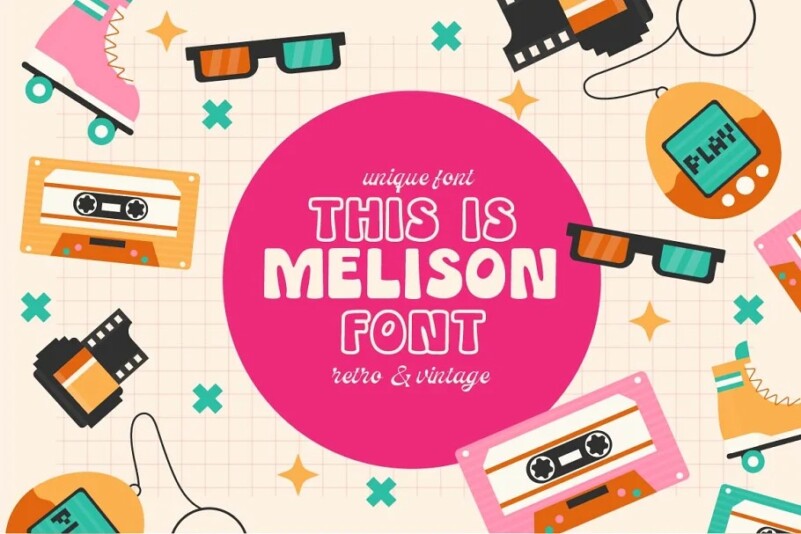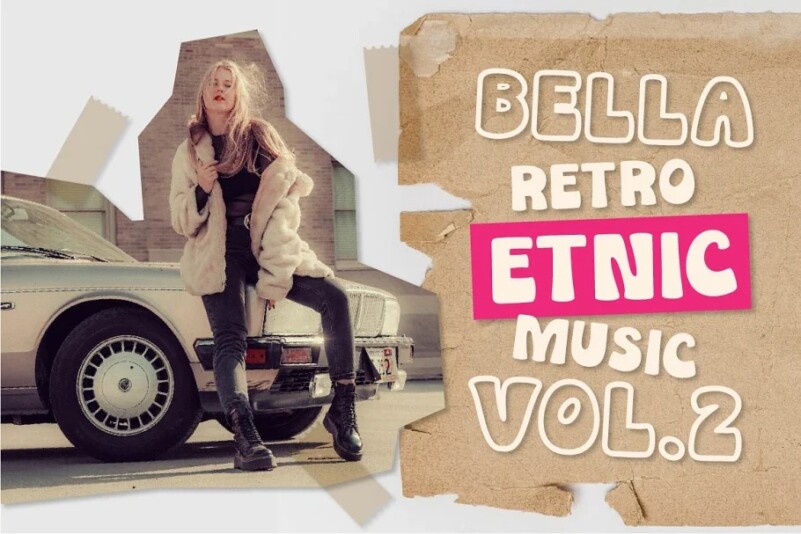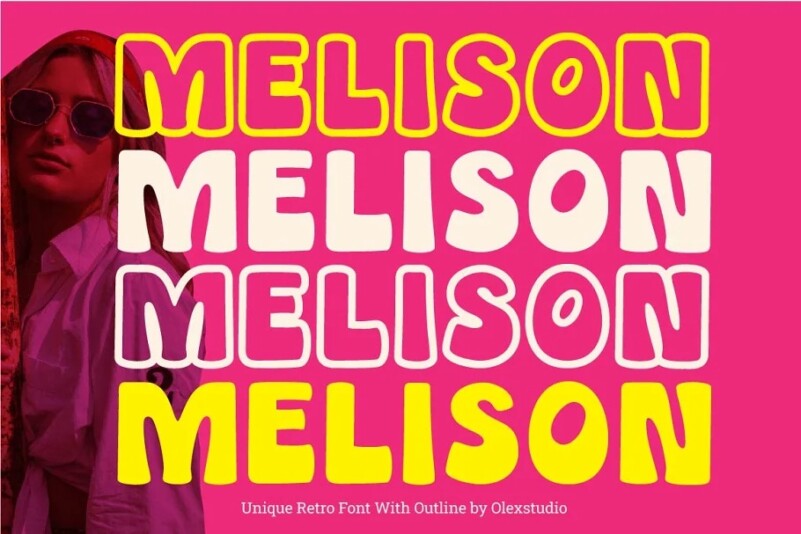
Melison – Retro Font
Melison Retro Display Font will look gorgeous on all your designs, invitation, poster design, book design, branding materials, logo’s, and all project design other.